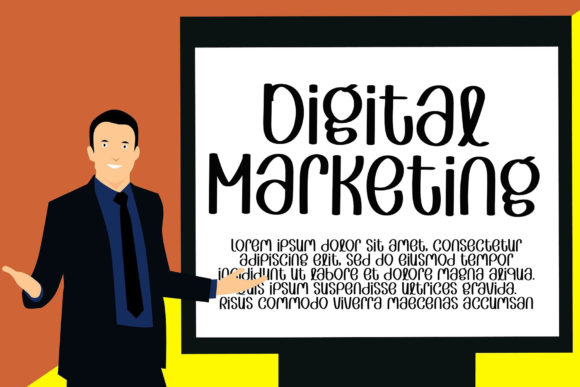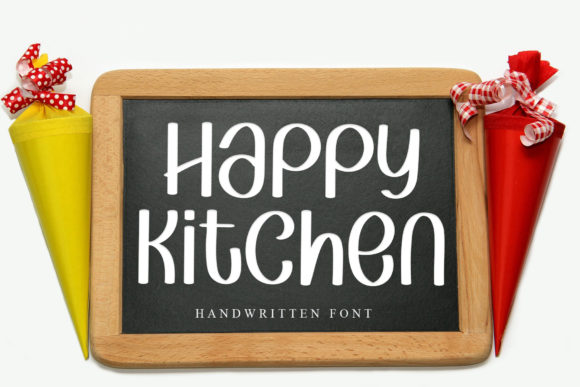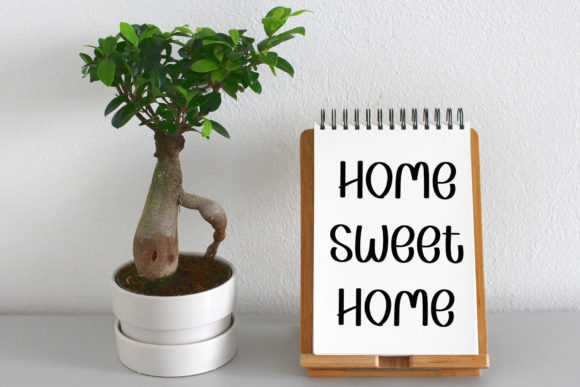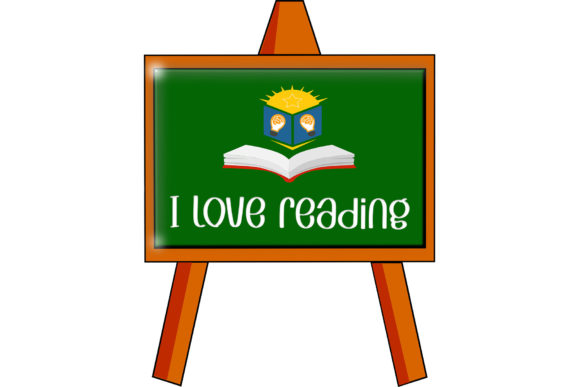
Vintage Clothes Font
About Vintage Clothes Font
Vintage Clothes is a whimsical script font with a relaxed theme, featuring a lovely style. No matter the topic, this font will be an incredible asset to your fonts’ library, as it has the potential to elevate any creation.